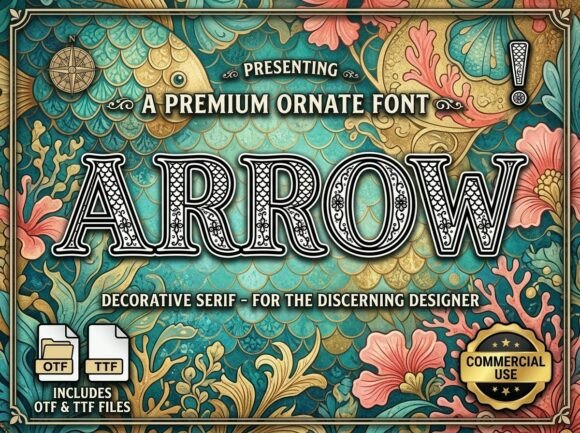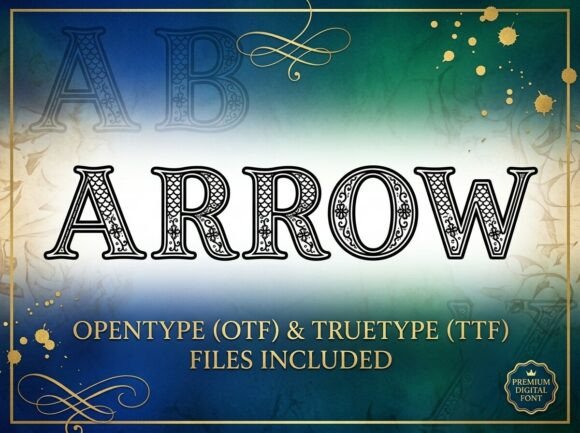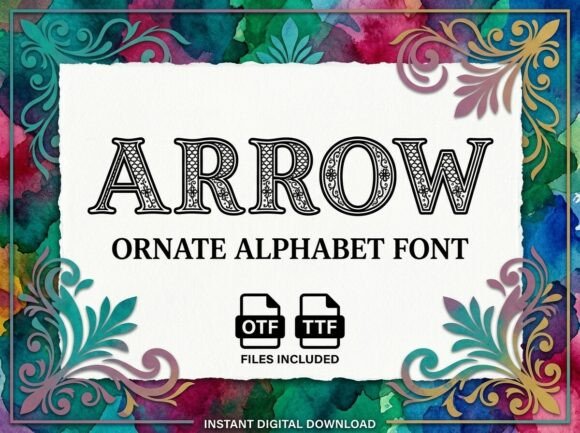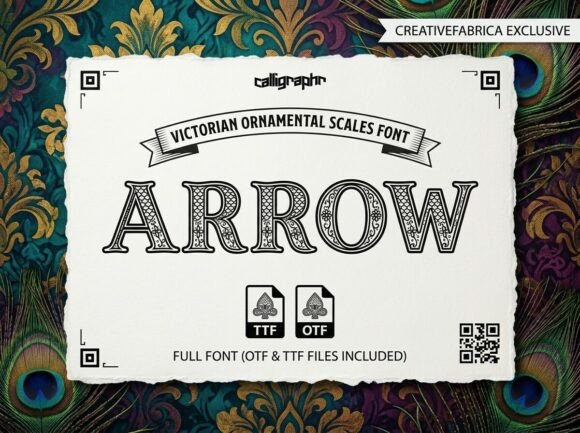
The Regal Charm of Arrow Font: Elevate Your Designs with Timeless Luxury
I’ll never forget the design project that led me to discover Arrow Font. I was working on a branding campaign for a high-end craft spirits label, and I was struggling to find the perfect font that exuded luxury and sophistication. The client wanted a design that would stand out on crowded store shelves, yet convey a sense of refinement and elegance. After hours of scouring font libraries and online marketplaces, I stumbled upon Arrow Font – and it was love at first sight! ✨
A Royal Introduction to Arrow Font
Arrow Font is a majestic display serif that embodies a “regal-and-refined” soul. Its classic, high-contrast letterforms are uniquely characterized by an intricate internal texture of rhythmic, hand-drawn “peacock scales” and floral flourishes. This distinctive design bridges the gap between Victorian engravings and modern high-end branding, making it the perfect choice for projects that demand a touch of luxury.
What I Love About Arrow Font
• ✅ Elegant and refined design that’s perfect for high-end branding and editorial projects
• ✨ Unique internal texture and floral flourishes that add a touch of whimsy and sophistication
• 🔥 High-contrast letterforms that make for stunning headlines and titles
• 💼 Medium structural weight that provides excellent legibility and versatility
While Arrow Font is an exceptional design, there are a few quirks to keep in mind: 🤔
• ⚠️ The font’s intricate design can make it challenging to use at smaller sizes or in body text
• ⚠️ Some of the more ornate features and glyphs may not display correctly on all devices or platforms
The Designer Inspiration Behind Arrow Font
According to the font’s creators, Arrow Font was inspired by the intricate engravings and ornate typography of the Victorian era. The design team spent countless hours researching and drawing inspiration from antique books, luxury packaging, and high-end branding campaigns. The result is a font that embodies the perfect blend of classic elegance and modern sophistication.
What is the best use case for Arrow Font? Arrow Font is ideal for high-end branding, editorial projects, and luxury packaging design.
Can I use Arrow Font for body text? While Arrow Font is primarily designed for display use, it can be used for body text in larger sizes (14pt or larger).
Is Arrow Font suitable for digital use? Yes, Arrow Font is optimized for digital use and can be used for a variety of digital projects, including social media graphics and website headers.